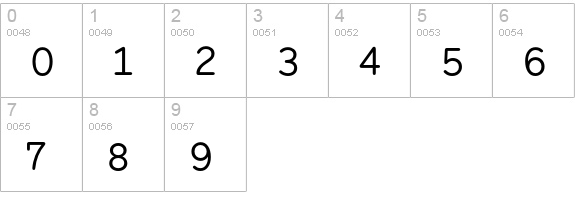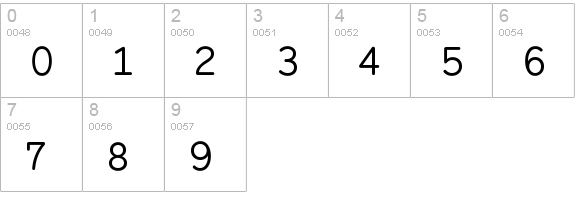
Maax Rounded is a modern and versatile typeface that exudes a sense of friendliness and approachability. Its rounded edges and clean lines make it perfect for a wide range of design projects, from branding to editorial design. This typeface strikes the perfect balance between professionalism and warmth, making it suitable for both digital and print applications. One of the best things about Maax Rounded is that it is available for free download at FontsMarket.com. This means that anyone can access this stylish font and use it in their projects without any cost. Whether you're a seasoned designer looking to add a fresh touch to your work or a novice designer exploring different typefaces, Maax Rounded is a fantastic choice that won't break the bank. Download Maax Rounded today and elevate your design projects with its modern and inviting aesthetic.